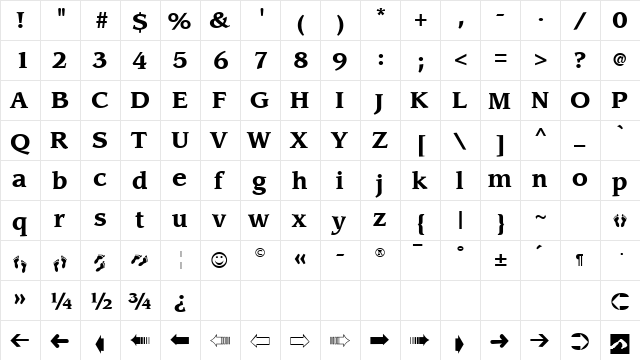
Sling Bold
Design Context for Sling Typeface
Sling takes a measured approach to typography — its balanced proportions and neutral character make it a reliable workhorse for both digital and print work. The heavy weight commands attention and anchors typographic hierarchies.